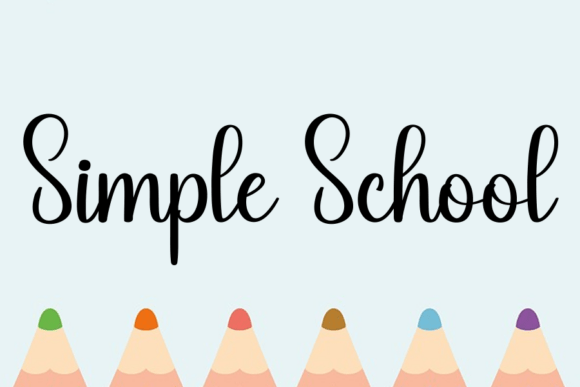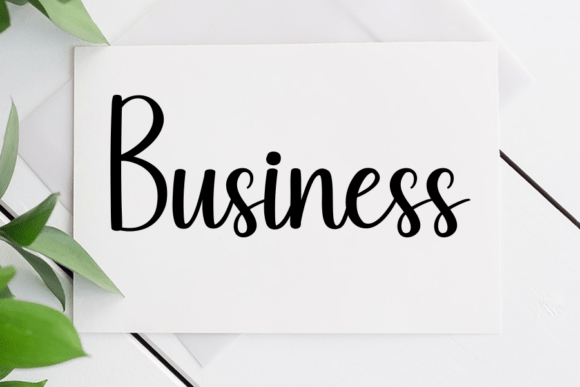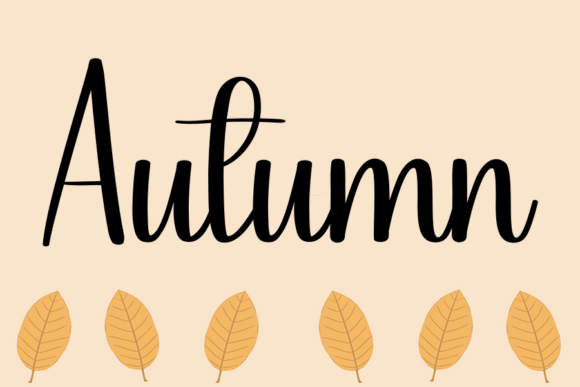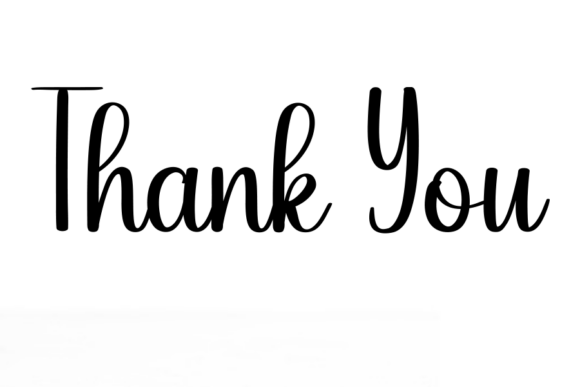
The Sweet Charm of Children Font: A Designer’s Delight
I’ll never forget the time I was working on a wedding invitation project, and my client asked for a font that was both elegant and playful. I scoured the internet, trying out font after font, but nothing seemed quite right. That was until I stumbled upon the Children font. This sweet and cursive handwritten font has been a game-changer for me, and I’m excited to share its charm with you! ✨
- ✨ The gentle, cursive script is perfect for adding a touch of whimsy to any design
- ✅ The font is incredibly versatile, working well for branding, logos, wedding materials, greeting cards, and more
- 💕 The romantic and joyful vibe is exactly what I need for projects that require a bit of elegance and sophistication
- 👍 The font is easy to read, even in smaller sizes
While I adore the Children font, there are a few things to keep in mind: 🤔
- ⚠️ Some of the letters may appear a bit narrow, so be mindful of spacing when using the font in titles or headings
- ⚠️ The font may not be the best choice for body text, as it can be a bit ornate for longer blocks of text
- Experiment with the font’s OpenType features, such as ligatures and stylistic alternates, to add some extra flair to your design
The Children font was designed with love and care by a talented typographer who wanted to create a font that would bring joy and whimsy to designs. The font’s gentle, cursive script is inspired by the beauty of handwritten letters and the romance of the past. Whether you’re a designer, crafter, or creative hobbyist, the Children font is sure to delight!
A: While the Children font is beautiful, it’s best suited for headings, titles, and short blocks of text. For longer body text, you might want to choose a more traditional font.